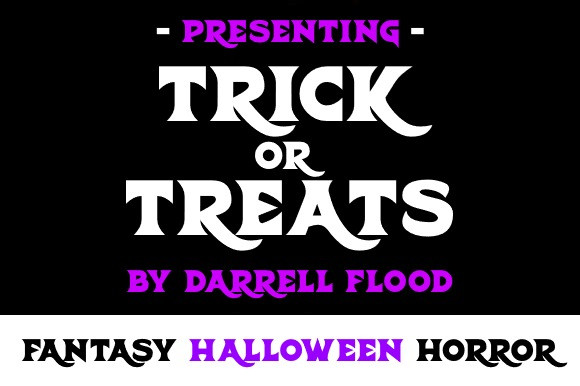
Trick Or Treats Font
Trick Or Treats Font – An expressive and elegant font in a fantastically flowing fantasy style. Perfect for Halloween themes, dungeon explorations, and general fantasy use!